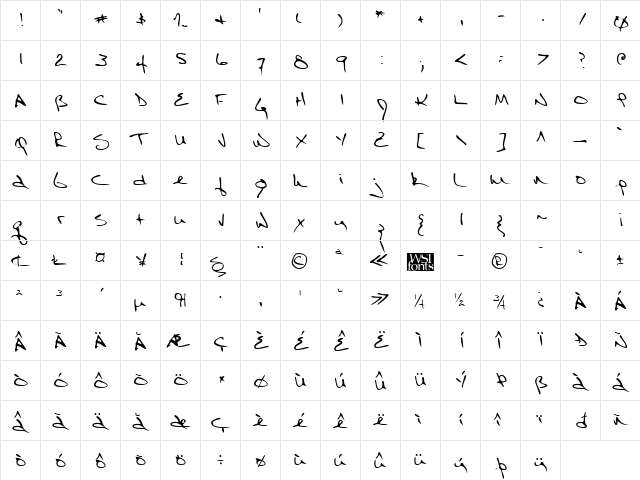
EricsHand Regular
Design Context for EricsHand Typeface
EricsHand brings a calligraphic fluidity to the page — its connecting strokes and expressive curves give it an unmistakably human quality.